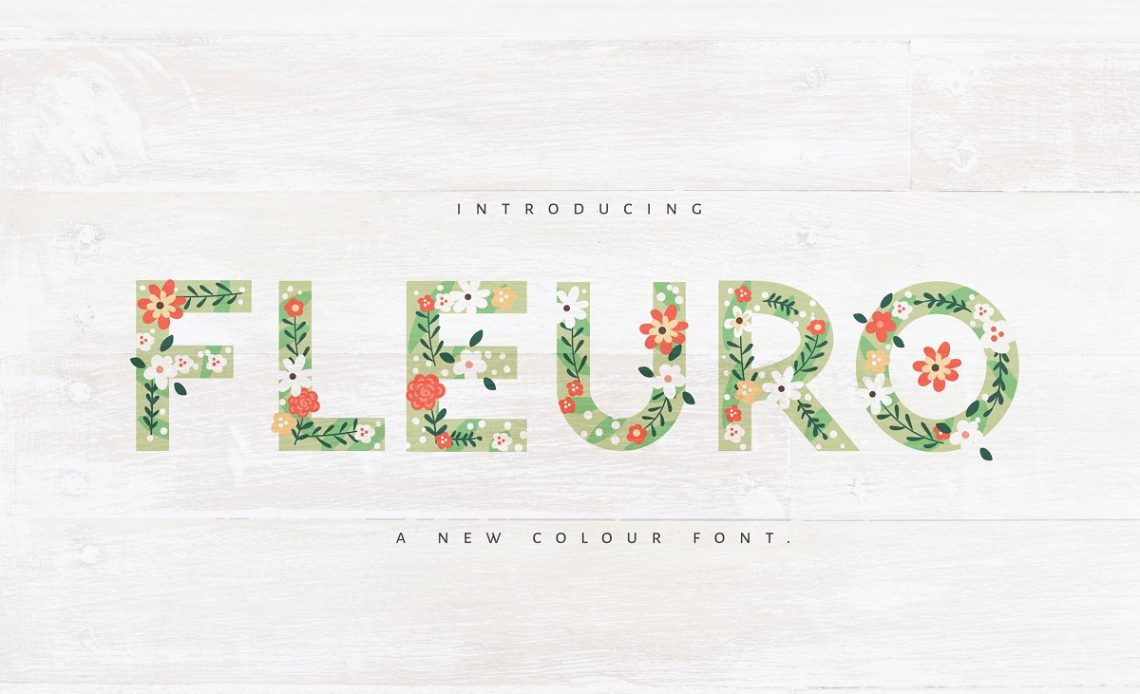
Welcome to the colorful world of FLEURO, the newest addition to our font family! Created by the incredibly talented Nicky Laatz, FLEURO is the perfect font for anyone looking for the best fonts for fun flyers. Whether you are designing party invitations, posters, or anything in between, FLEURO is the font that will add life and excitement to your projects.
At the heart of FLEURO is its vibrant and eye-catching color vector font, which is available in both OTF and EPS formats. In addition, the package includes flower vectors that were used to create the lettering, and are available as Photoshop vectors and Illustrator files. With FLEURO, you have everything you need to create stunning designs that will make your work stand out.
But FLEURO isn't just about aesthetics - it's also incredibly easy to use. Thanks to the Fontself extension for Photoshop and Illustrator, creating color fonts has never been simpler. This innovative software makes it possible to create fonts that are not only visually stunning but also highly functional.